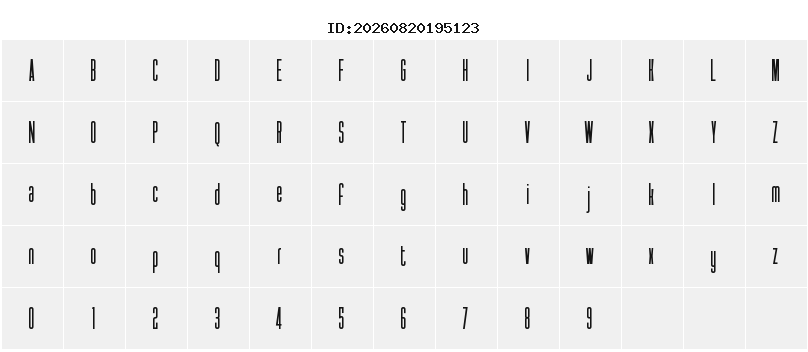
See You At The Movies 2: Revenge & Retribution Preview
• Font Name: See You At The Movies 2: Revenge & Retribution
• Designer: Andrew McCluskey
About See You At The Movies 2: Revenge & Retribution.otf
See You At The Movies 2: Revenge & Retribution.otf is a modern, elegant sans-serif font designed for ultimate readability and visual harmony. Perfect for branding, headlines, web design, and print materials.